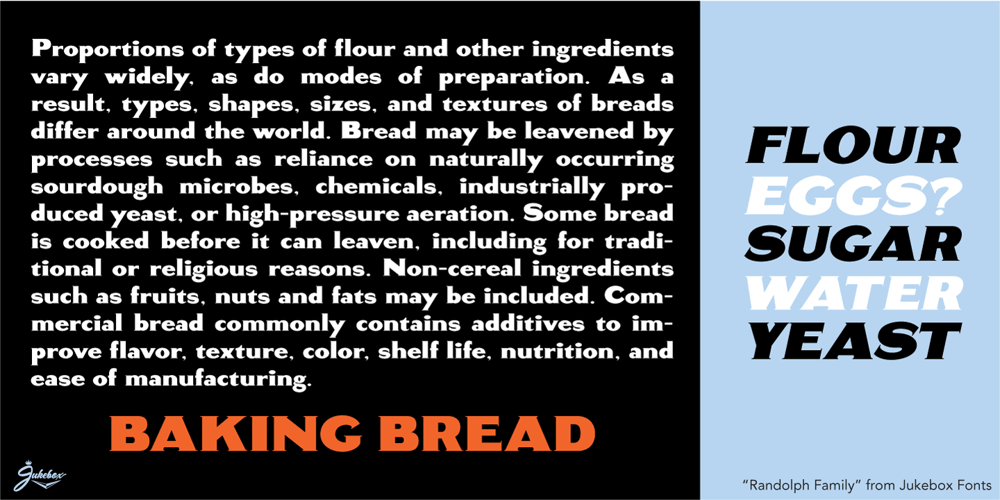
Randolph
Randolph font
Randolph Font Family was designed by Jason Anthony Walcott and published by Jukebox Collection. Randolph contains 2 styles and family package options. Randolph is a popular font family from Jukebox done in an old fashioned copperplate etching style that harkens back to the days of old leather-bound shop ledgers and hand painted window signs. The large and wide letterforms of Randolph make a bold statement that will add solidity and impact to any design. Jukebox fonts are available in OpenType format and downloadable packages contain both .otf and .ttf versions of the font. They are compatible on both Mac and Windows. All fonts contain basic OpenType features as well as support for Latin-based and most Eastern European languages.